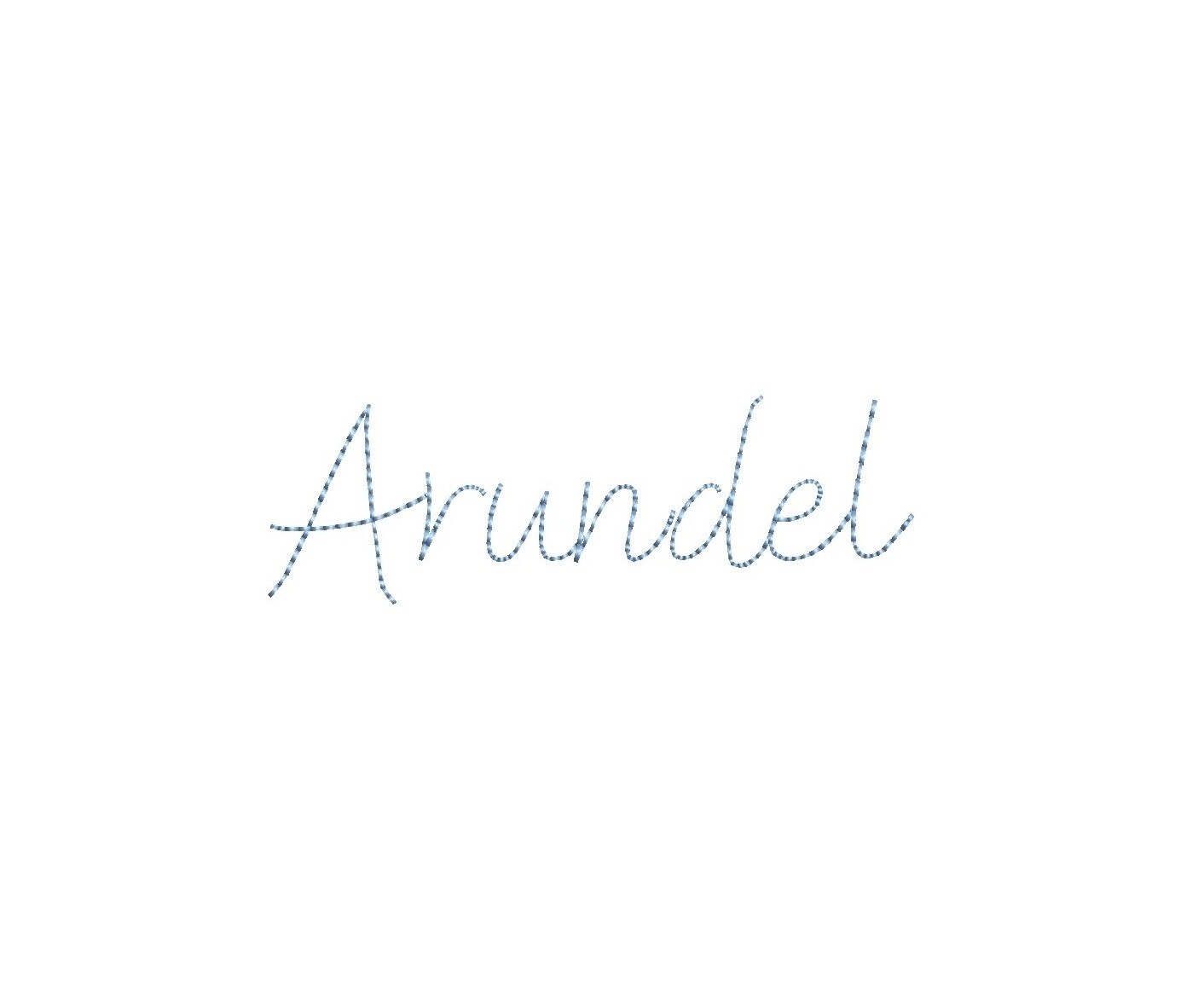
Enhance your embroidery projects with the exquisite Arundel Bean Stitch ESA font, now compatible with Wilcom Studio e4.5.6 and Hatch 3 versions and newer. Crafted to perfection, this font brings timeless elegance to your designs. Its intricate bean stitch adds depth and texture, creating captivating visuals. Elevate your creations with the seamless integration and user-friendly interface of Wilcom Studio e4.5.6 and Hatch 3. Unlock limitless possibilities as you combine modern technology with classic aesthetics. Download Arundel Bean Stitch ESA font today and experience embroidery like never before. Transform your visions into reality with this harmonious blend of artistry and innovation.